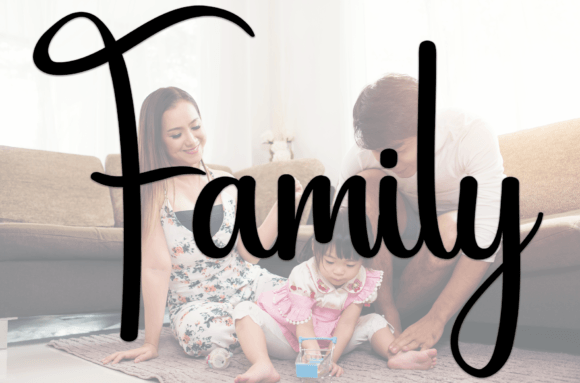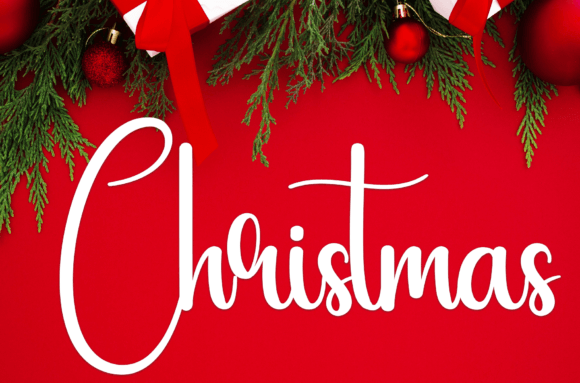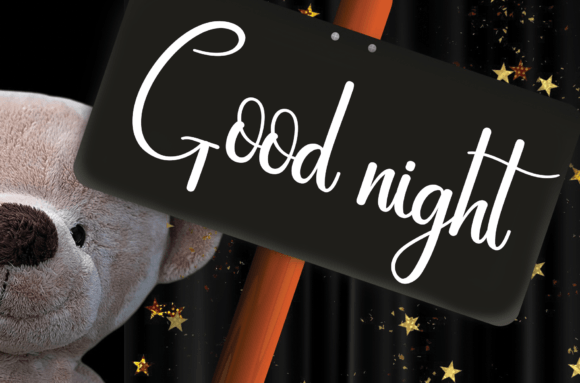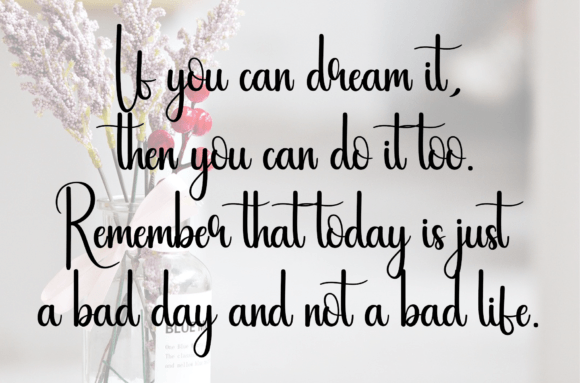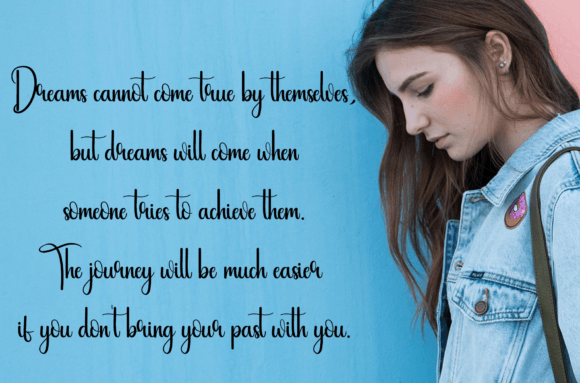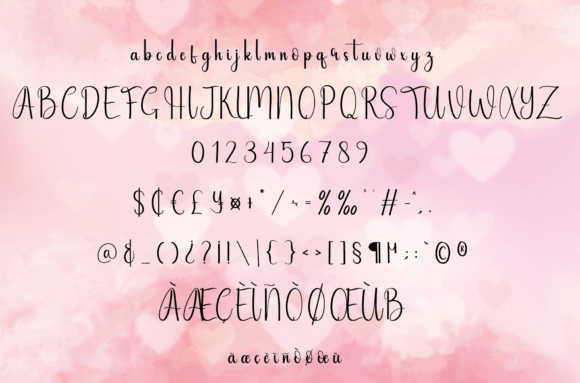
A Creative Beginning: The Hello January Font
There’s nothing quite like the feeling of sitting down with a blank sheet of paper, a cup of hot coffee, and a spark of inspiration. It’s a moment where creativity flows freely, and the possibilities seem endless. For designers, this moment is a chance to bring their vision to life, and for those who love handwritten fonts, it’s a chance to add a personal touch to their work.
Enter the Hello January Font, a sweet and friendly handwritten font that’s perfect for adding a warm and welcoming feel to any design. Whether you’re crafting wedding invitations, creating cards for special occasions, or simply looking to add a touch of personality to your brand, this font is an ideal choice. Its relaxed and fun vibe makes it a valuable addition to any designer’s toolkit, offering endless possibilities for creative expression.
Hello January Font Key Features
- Font Family: A modern, elegant script font designed for various applications, including invitations, wedding stationery, and digital designs.
- Font Size: Designed to be highly legible at various sizes, ranging from 8pt to 48pt, making it suitable for a wide range of applications.
- Unique Characteristics: Features a unique blend of calligraphic and handwritten elements, with subtle flourishes and elegant connections between letters.
- Language Support: Supports a wide range of languages, including Latin, Cyrillic, and Greek scripts, making it a versatile choice for global designs.
Hello January Font Review
Hello January Font is a beautiful, elegant script font that has captured my attention. It’s perfect for creating a warm and inviting atmosphere in any design project. ✨
Here are some things that work well about this font:
- Unique and elegant script style that adds a touch of sophistication
- Perfect for creating a warm and inviting atmosphere in designs
- Works well for titles, headings, and body text
- May not be suitable for very long blocks of text due to its script style
- Can be difficult to read at small font sizes
- Not as versatile as some other fonts in terms of style
Overall, I think Hello January Font is a great addition to any designer’s toolkit. It’s perfect for projects where you want to add a touch of elegance and sophistication. While it may have some limitations, it’s well worth considering for your next design project. ✨
To get the most out of the Hello January Font, try combining it with bold or italic styles for added emphasis, or use it with a subtle gradient or shadow effect to add depth and dimension.
The Hello January Font is perfect for:
- Winter-themed designs and graphics
- New Year’s Eve or New Year’s Day celebrations
- Winter sports or outdoor activities
- Any design that needs a fresh, modern, and clean look